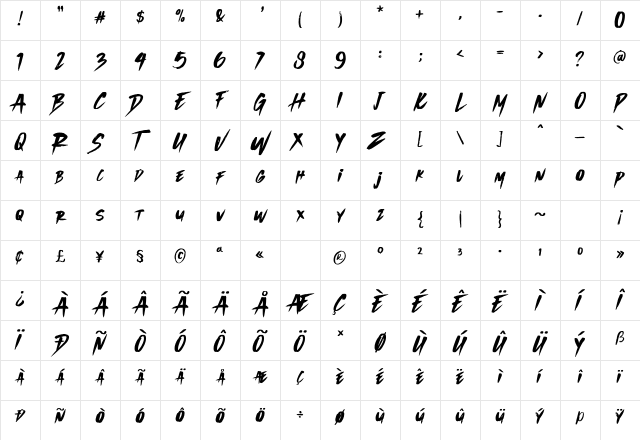
Wild Wolf Regular
Foundry: Hans Co
Designer: Burhan Afif
Design Context for Wild Wolf
Wild Wolf is a composed and adaptable typeface that performs quietly and consistently across a wide range of design contexts.